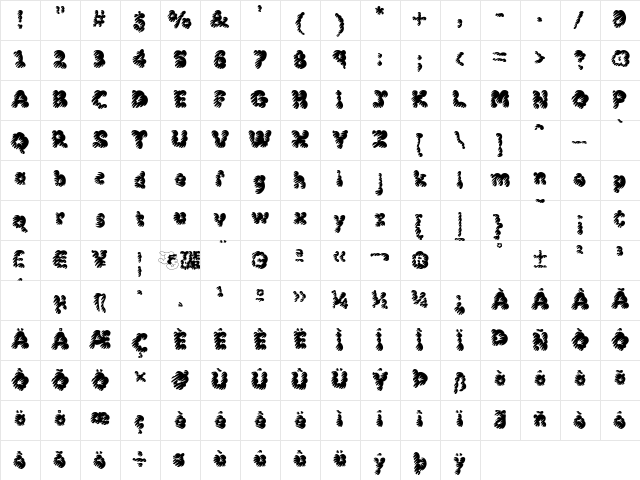
McKloud Misty Regular
Design Context for McKloud Misty Typeface
McKloud Misty is a composed and adaptable typeface that performs quietly and consistently across a wide range of design contexts.